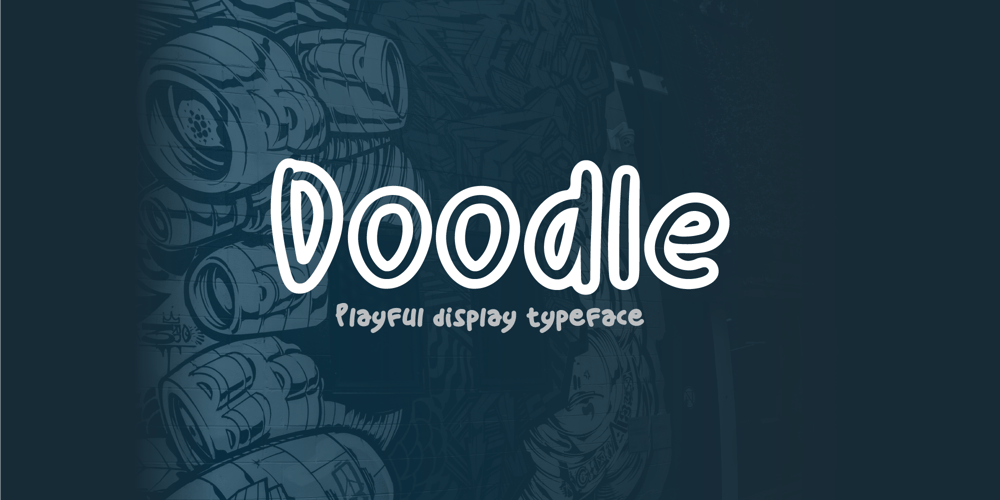
Doodle Font Family was designed by Wahyu Aji Prasetyo and published by WAP Type. Doodle contains 1 styles and family package options. Doodle is a cool and friendly display font. It can easily be matched to an incredibly large set of projects, so add it to your creative ideas and notice how it makes them stand out!